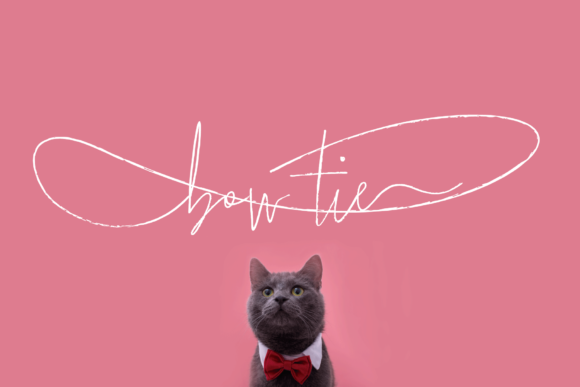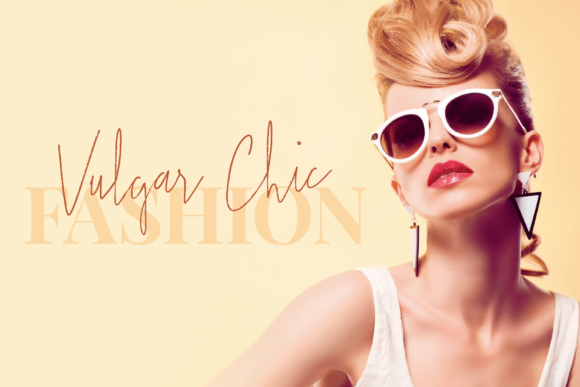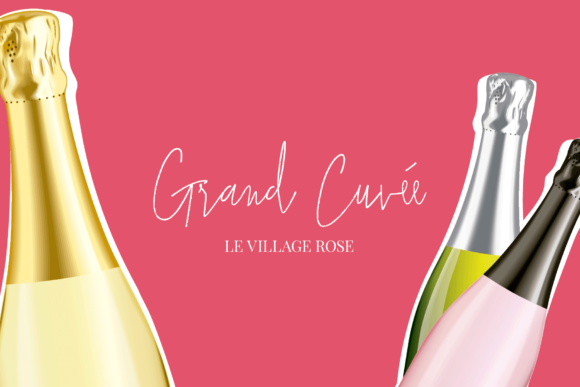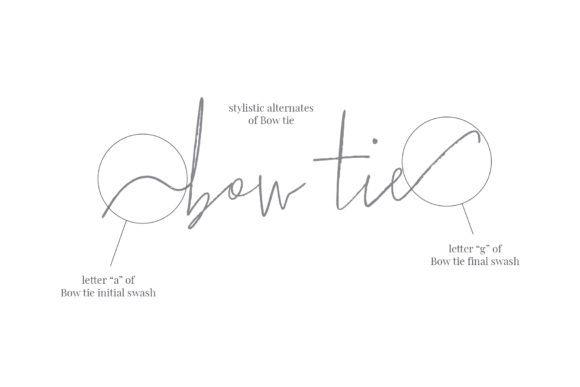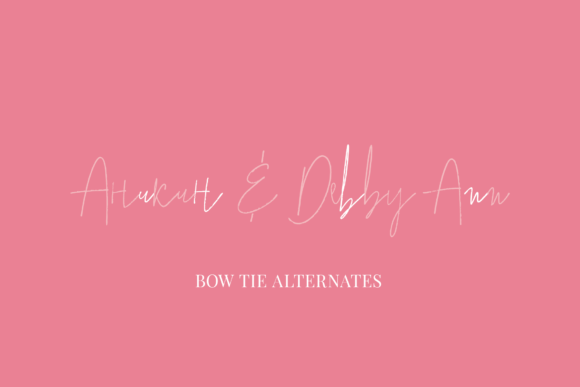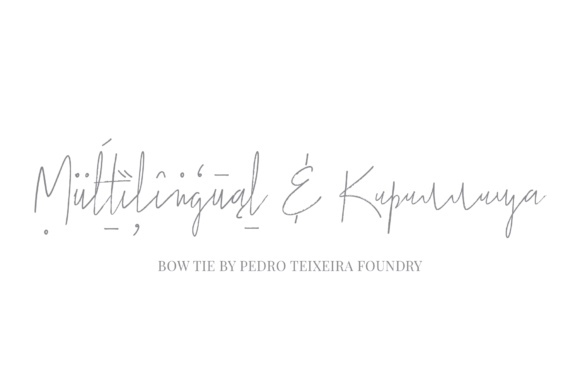
Bow Tie Font
About Bow Tie Font
Bow Tie, a slight textured, organic and elegant signature typeface. This modern, stylish and legible script is handy for logos, posters, headlines, invitations, cards and all display needs.
1. Bow Tie
2. Bow Tie Alt
3. Bow Tie Ligatures and Ligatures1
4. Bow Tie Initial Swash
5. Bow Tie Final Swash
6. Bow Tie Swash